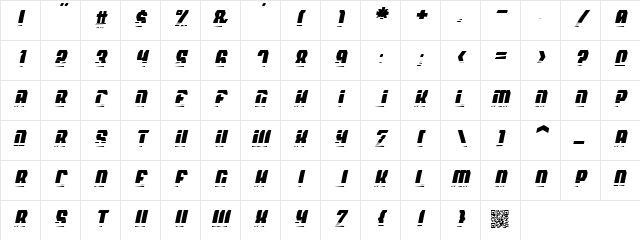
Complete Spyh Vent Italic glyph index. Displaying only characters natively supported by Spyh Vent Italic font.
Spyh is a composed and adaptable typeface that performs quietly and consistently across a wide range of design contexts. The slanted form adds forward momentum and visual energy.